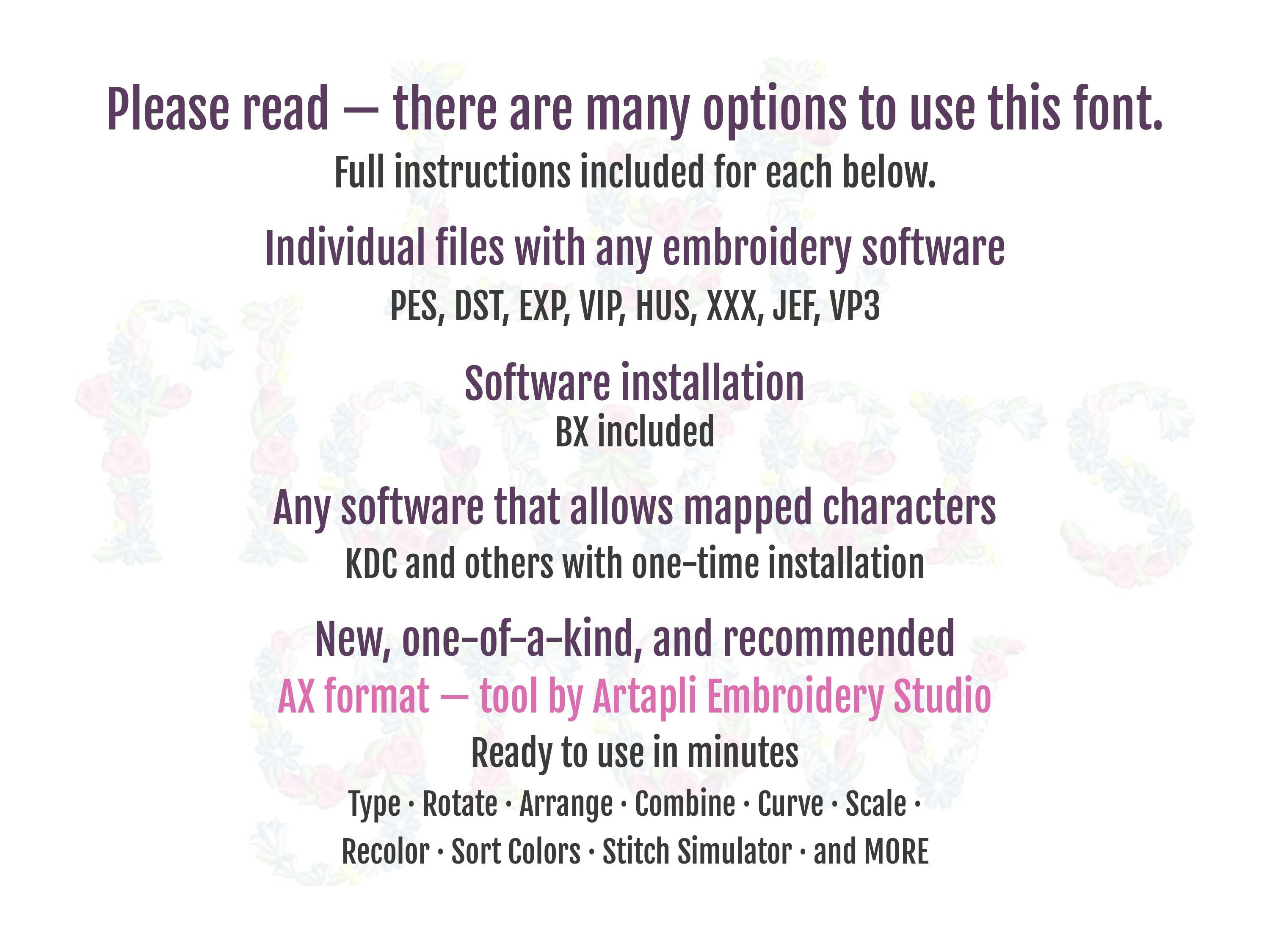
UPDATED! Meadow Bluebell Rose Floral Font Flower alphabet uppercase and lowercase letters initial monogram machine embroidery designs, BX included
Letters Aa - Zz
3.9 inches